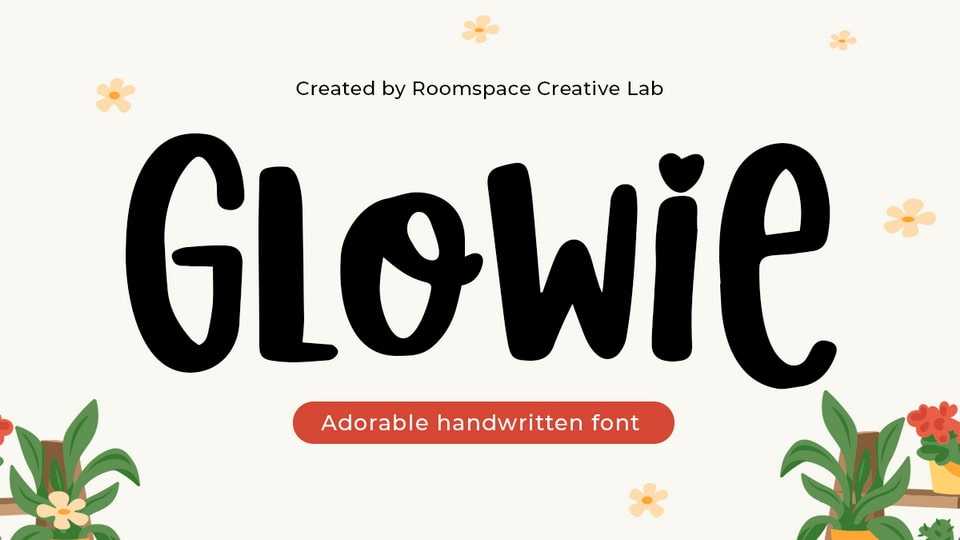
Download Glowie font, an adorable handwritten typeface that brings charm and personality to your projects with its playful curves and subtle aesthetic style.